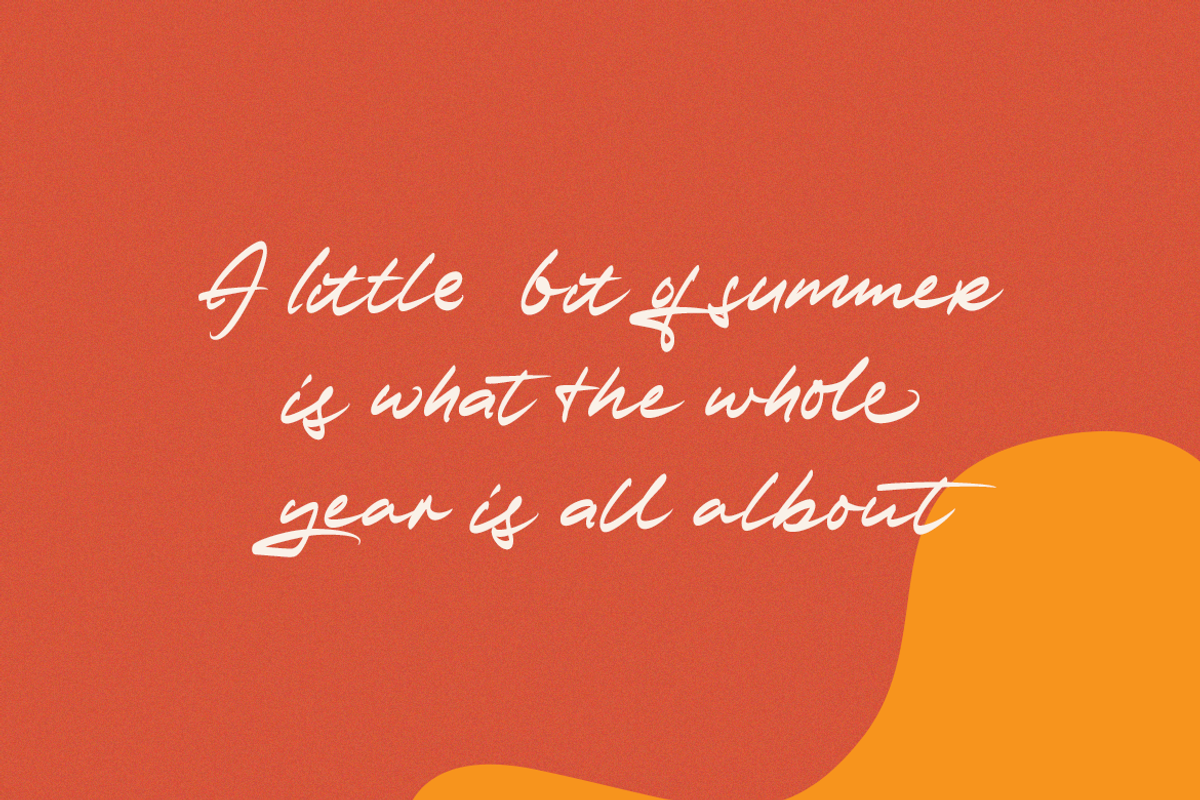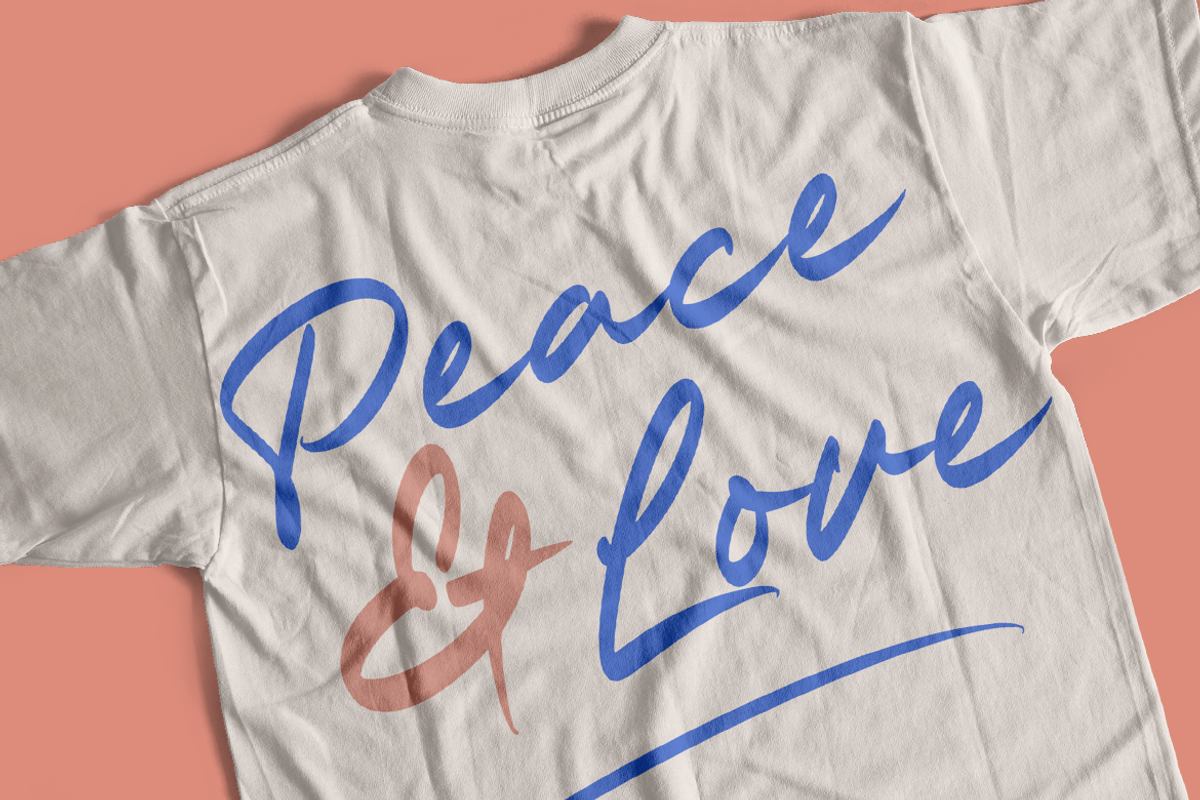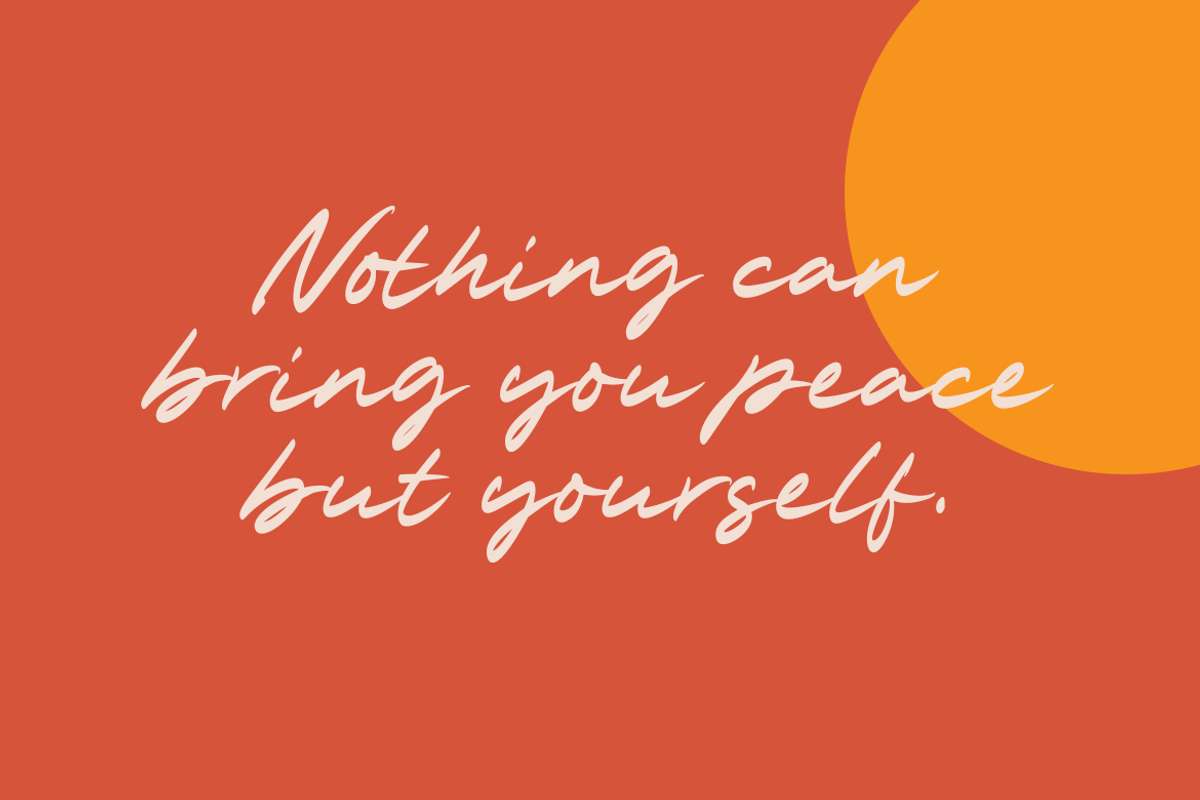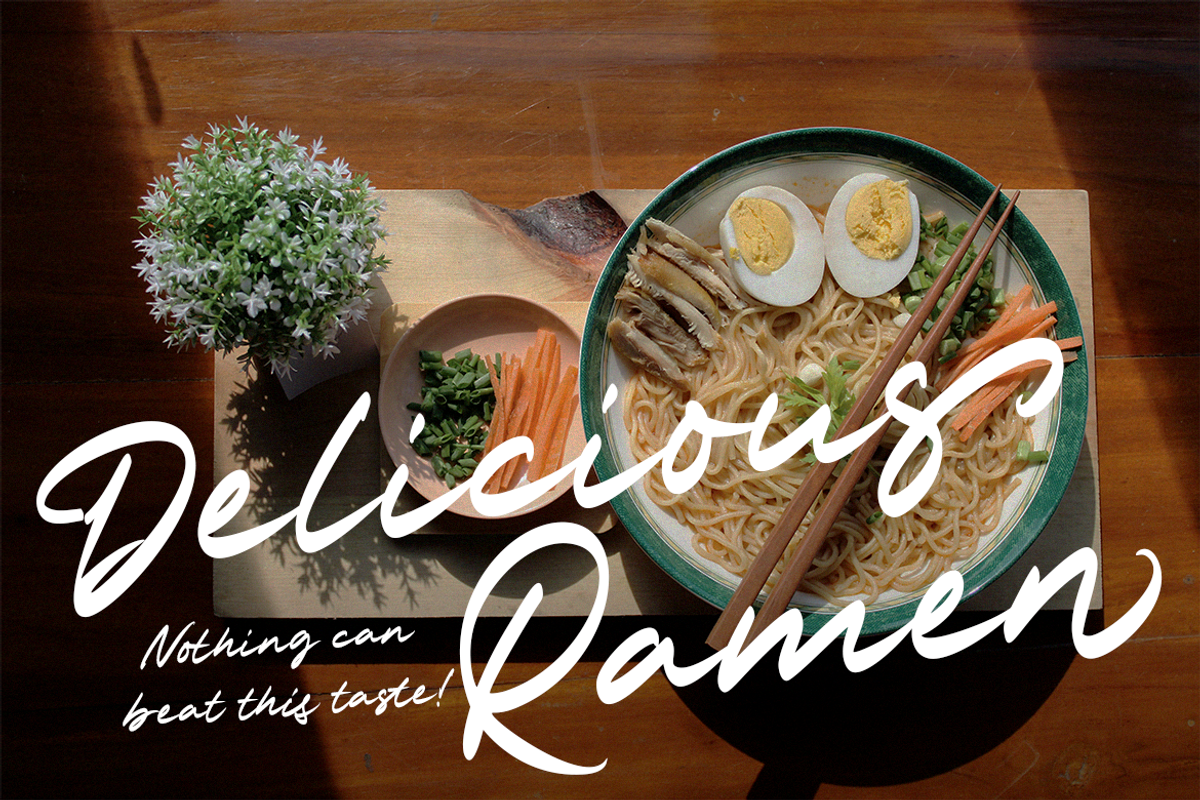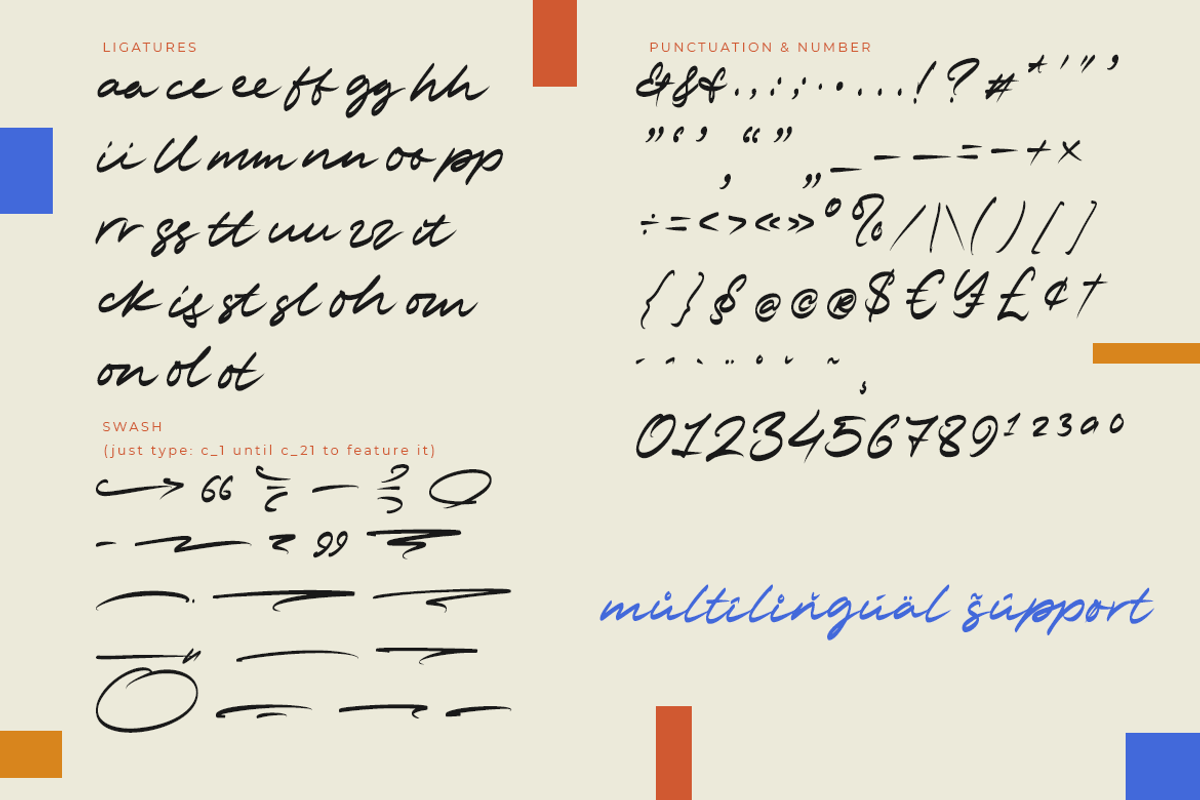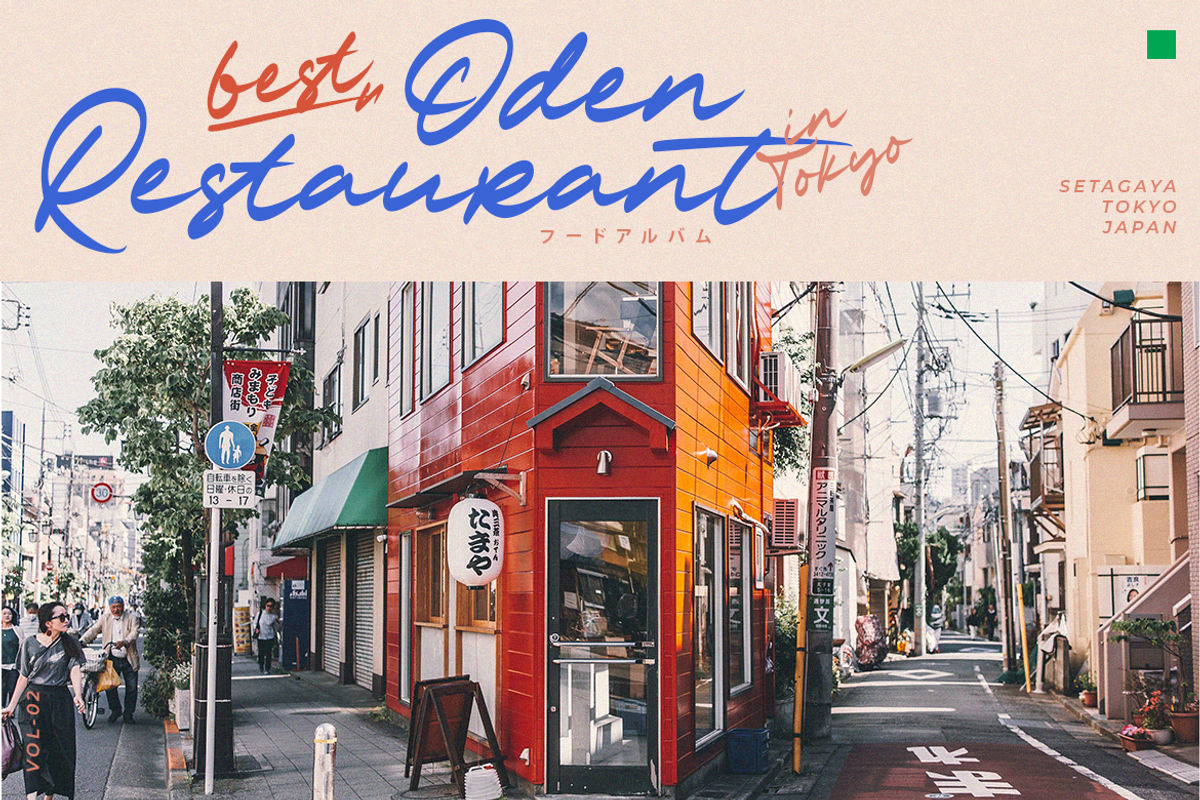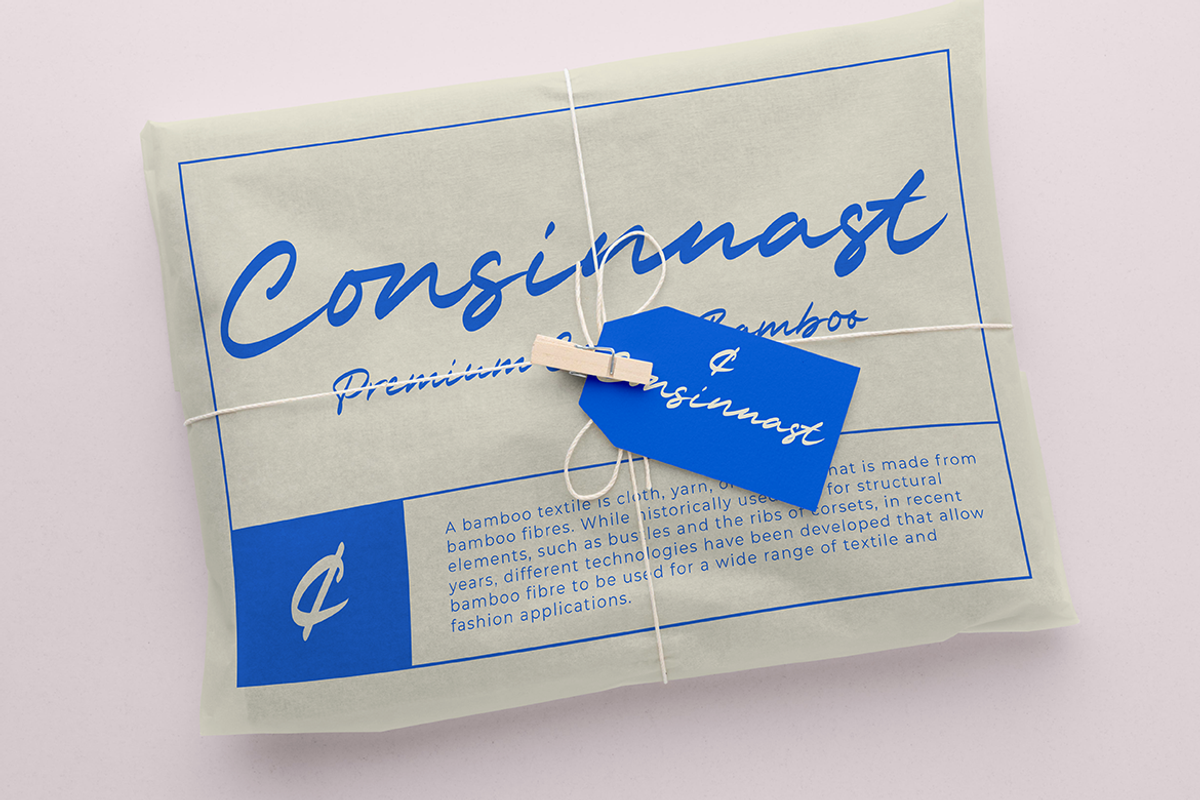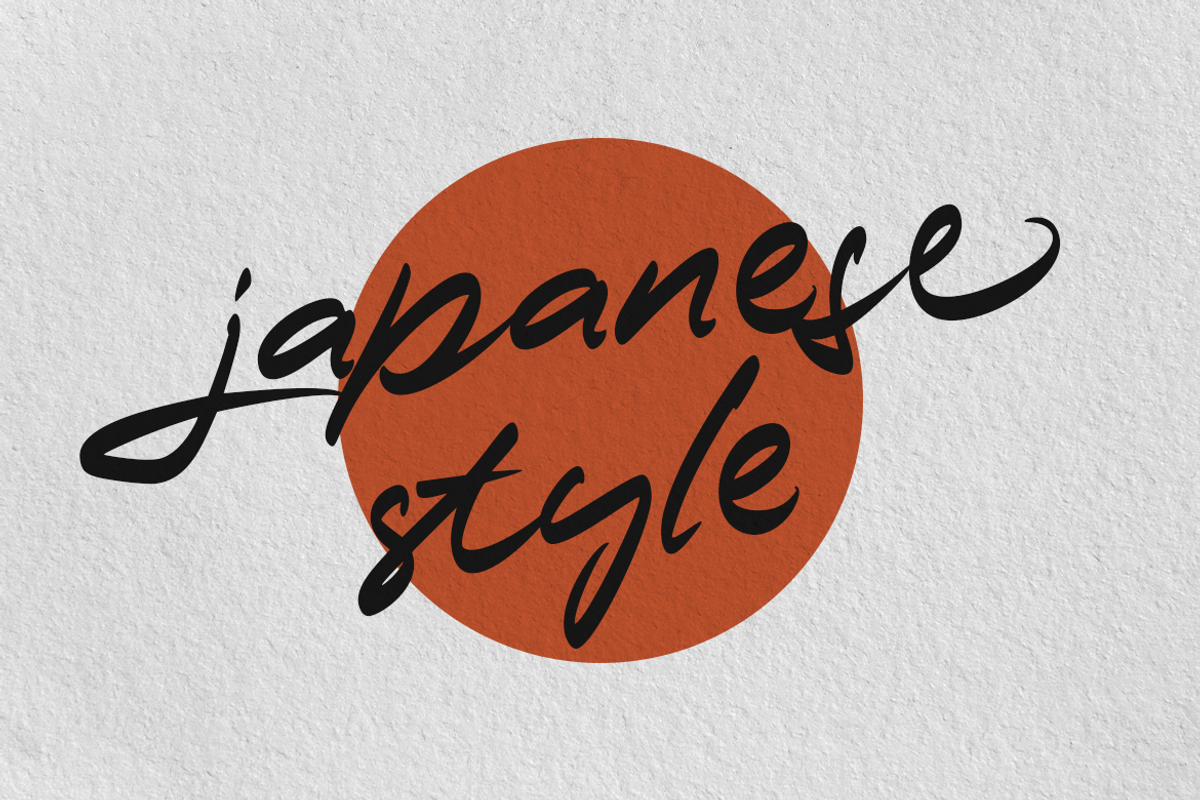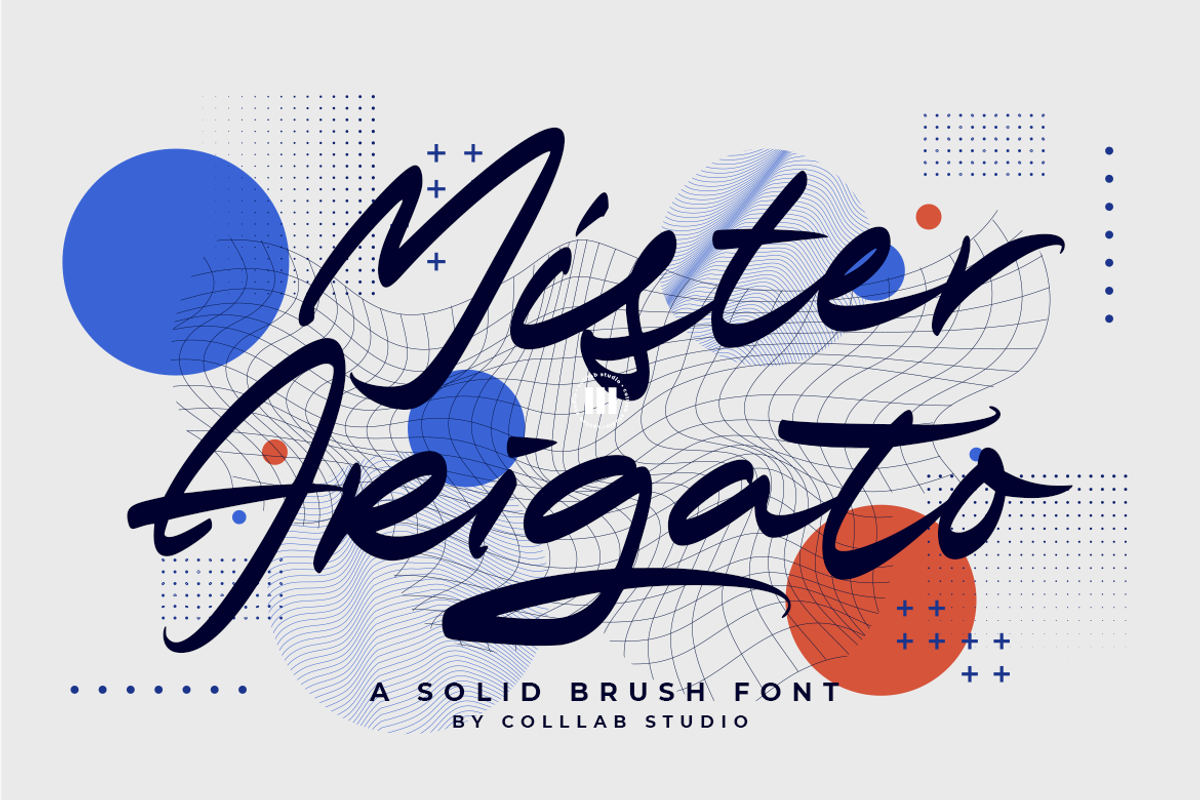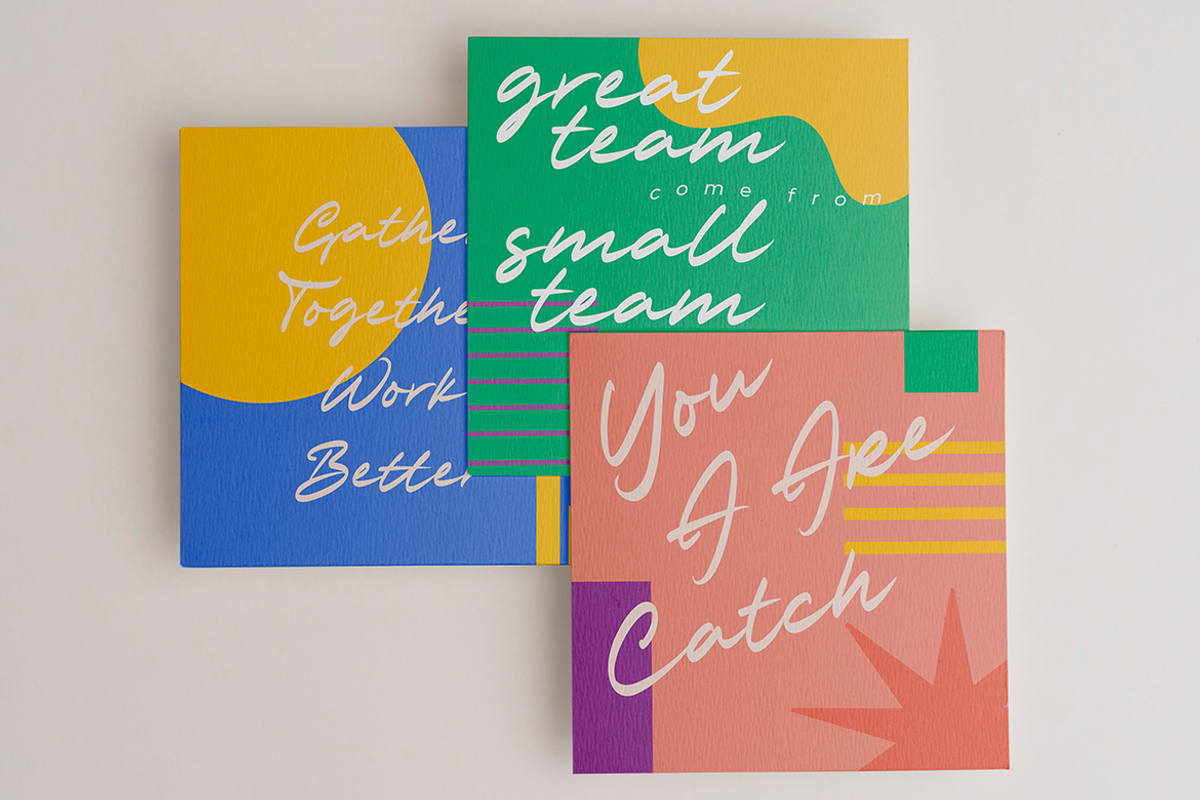
Mister Arigato | A Solid Brush Font
Mister Arigato is a modern, unique calligraphy font inspired by traditional Japanese and Korean brush lettering. It gives you that little extra something you always been looking for. We do more than just type, we help you show how much you care in your most precious brand.
This font is a great option for any project that involves sending letters as a decorative piece of artwork (attach it to a mug, or place on a greetings card), or for use for branding purposes(headline, logo, etc.). Though it is not double-width, the letters easily tailor to any word-spacing.
- 314 Glyps,
- 40+ Stylistic Alternates
- Multilanguage Support ( 64 Languages )